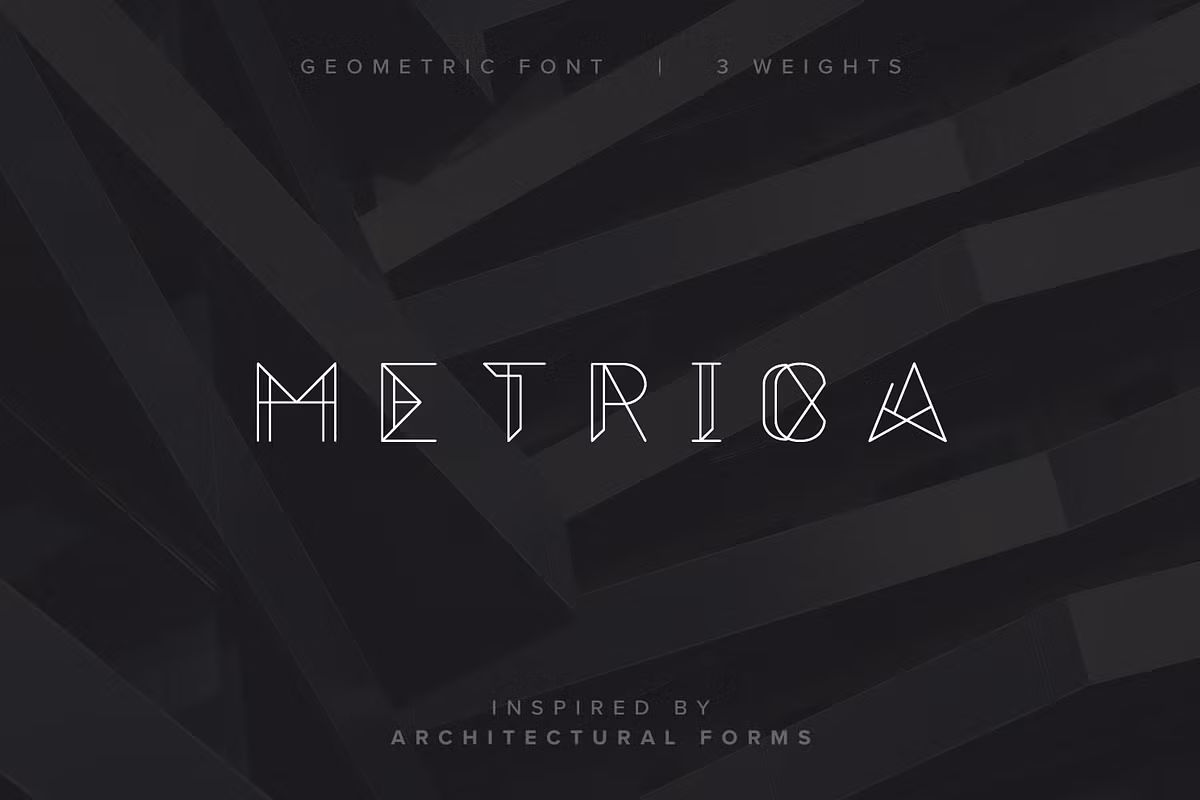
Please note, to use this font for commercial purposes, you must purchase the full version. Metrica is a modern and sleek sans-serif font designed to provide a clean, professional look for any project. With its geometric letterforms and contemporary design, this font is perfect for logos, branding, websites, editorial designs, and more. Whether you're designing for a tech brand, a creative campaign, or a corporate project, Metrica adds a polished and minimalist touch to your work. Test it out and enjoy free download access for personal use. Experience the stylish, modern look of Metrica Font Free Download before purchasing the commercial license. Add a refined, geometric touch to your designs with Metrica.